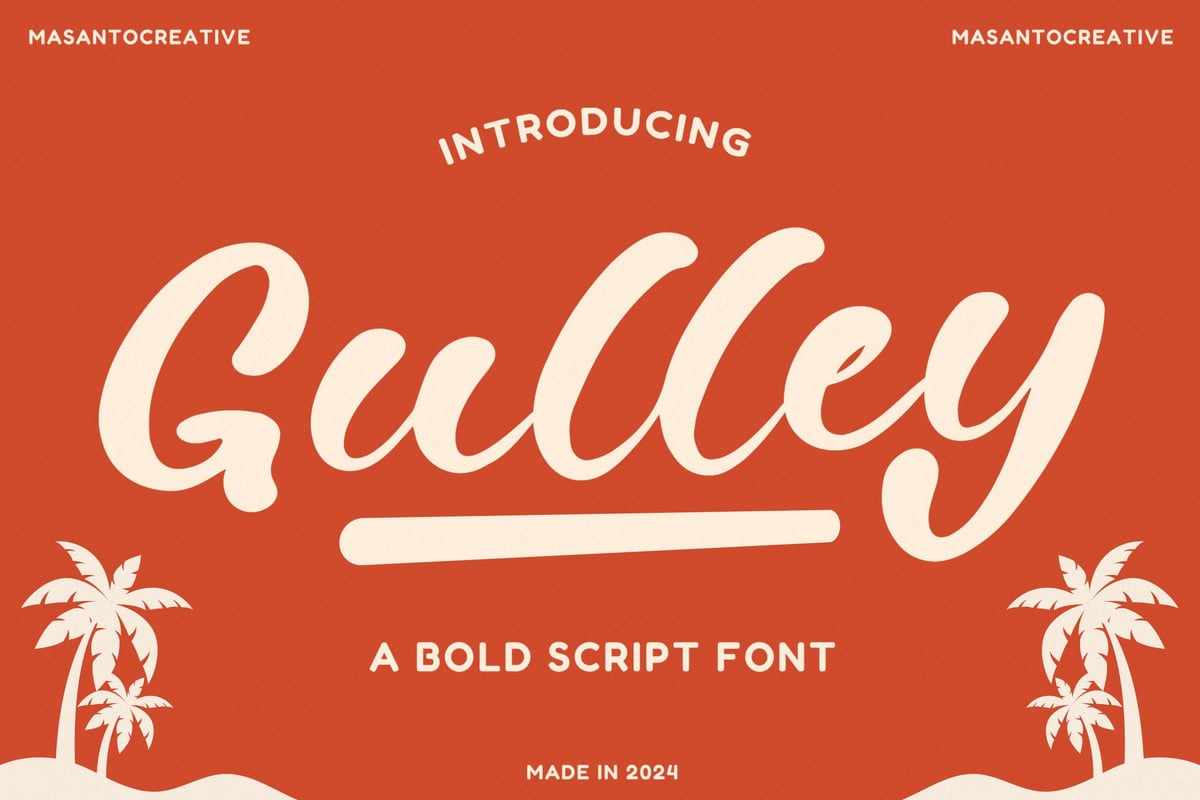
Gulley – Bold Script Typeface
Gulley is the bold, energetic script font built to make logos, headlines, and packaging impossible to ignore.
With thick, flowing curves and a hand-drawn character, Gulley carries a retro-inspired personality that feels both timeless and full of life. Its dynamic stroke weight and expressive letterforms make it a natural fit for vintage branding, custom typography projects, and statement designs across apparel, labels, and packaging.
Whether you're crafting a surf-inspired brand identity, a bold product label, or a standout headline, Gulley delivers the visual punch to make it work.
- Ligature support
- Full uppercase and lowercase characters
- Numerals and punctuation
- Multilingual character support